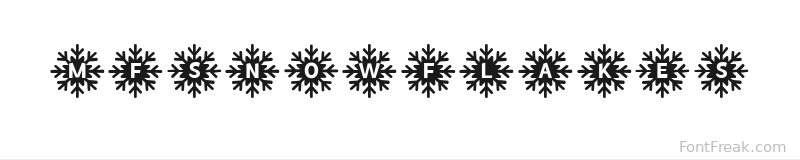
MFSnowflakes
About MFSnowflakes
MFSnowflakes by Misti Hammers is a distinctive decorative font that captures the essence of winter with its unique snowflake motifs. This font stands out in the realm of display typography, where it can be both eye-catching and functional. Characterized by its intricate snowflake designs, MFSnowflakes features a balanced stroke weight that provides a pleasing contrast, making it versatile for various applications. The spacing is thoughtfully arranged, allowing each snowflake to shine individually while maintaining an overall cohesive look.
This font is particularly well-suited for holiday-themed projects, such as winter wedding invitations, festive greeting cards, and seasonal marketing materials. Its whimsical nature also makes it an excellent choice for children's book covers and winter event flyers, where a sense of fun and creativity is essential. Graphic designers looking to add a touch of seasonal charm to their projects will find MFSnowflakes a valuable addition to their font library. Small business owners and content creators can leverage this font's unique aesthetic to enhance their branding during the winter months, attracting attention with its delightful designs.